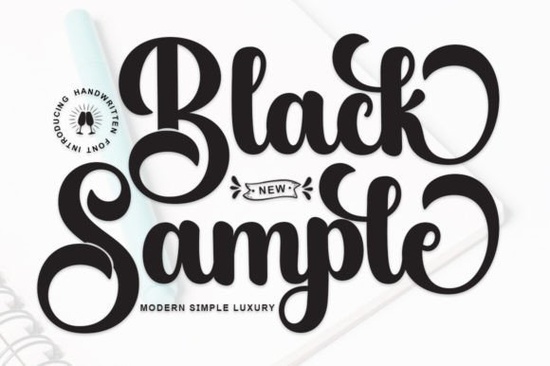
If you're looking for a script font that balances elegance with everyday charm, Black Sample Font might be exactly what you need. It draws from classic calligraphy but keeps things fresh and usable for modern projects logos, wedding invitations, labels, and social media graphics all benefit from its graceful strokes. Instead of feeling stiff or overly ornate, it stays warm and inviting, which is often the hard part with script typefaces.
What makes Black Sample Font different from other script fonts?
Many script fonts lean heavily into one direction either too fancy for everyday use or too casual for premium work. Black Sample Font sits in a sweet spot. It has that calligraphic foundation, with flowing connectors and varied stroke widths, but it doesn't try to be a reproduction of vintage lettering. It feels current. The letters have enough personality to stand alone in a logo, but they also pair well with simpler sans-serif fonts for body text or secondary information.
If you've worked with the Beautiful Wildflower Duo, you already know how a well-crafted script can transform a layout. Black Sample Font offers a similar level of polish, but with a slightly more refined, elegant posture. It's less playful and more sophisticated, which makes it a solid choice for branding projects where you need to communicate both quality and approachability.
Is this font suitable for print-on-demand products?
Absolutely. Print-on-demand sellers will find a lot to like here. The font reads well at different sizes, so it works on everything from t-shirt quotes to notebook covers to wall art prints. The letterforms are clear enough to remain legible when scaled down for mugs or phone cases, yet detailed enough to look premium on larger items like tote bags or posters.
For example, if you're designing a line of wedding-related products, this font can handle the main headline on a "Mr & Mrs" mug or the elegant script on a set of thank-you cards. It also pairs naturally with the Olivia Scatcer Font if you need a secondary script for contrast or a more whimsical accent.
How can designers use Black Sample Font in branding projects?
Branding is where this font really shines. Because it feels both charming and elegant, it works well for businesses that want to appear trustworthy but not cold. Think boutique hotels, florists, bakeries, wedding planners, or stationery shops. The font can carry a logo on its own, or you can use it as a display type paired with a clean sans-serif for the rest of the identity.
When building a brand kit, consider using Black Sample Font for:
- Primary logo text – the flowing letters create a memorable first impression.
- Taglines or short phrases – it keeps the message feeling personal and handcrafted.
- Invitations and save-the-dates – the calligraphic roots make it a natural fit for formal events.
- Social media headers and quotes – it adds a human touch to digital content.
If you're working on children's products or playful branding, you might also explore the Children School Font for a contrasting, more casual feel. Combining the two could give you a versatile system for different product lines or audience segments.
What about using this font for wedding and event designs?
Wedding designers will appreciate how easily Black Sample Font adapts to different style themes. Whether the couple wants rustic, modern, boho, or classic, this font can fit in without looking like a template. Use it for the couple's names on the invitation, the ceremony program headings, or the thank-you notes.
It also works beautifully with ornamental elements. If you're layering text over a floral background or a watercolor wash, the font's stroke contrast helps it stay readable. For winter or holiday weddings, you could even pair it with the Christmas Lights Font for a festive touch that still feels elegant.
Does Black Sample Font work well for signage and labels?
Yes, and this is a use case that often gets overlooked. Signage and labels require fonts that are readable from a distance or at small sizes. Script fonts can sometimes fail here, but Black Sample Font keeps its clarity. The letter spacing is generous enough that words don't blur together, and the ascenders and descenders are balanced.
For product labels think candles, skincare, or gourmet food this font adds a handcrafted, artisanal feel. It suggests quality without needing to say it. You can use it for the product name, then drop to a simple sans-serif for ingredients or instructions. The contrast between the two will make your label look professional and intentional.
If you're creating outdoor signage or banners, just make sure the font size is large enough to keep the script readable. For indoor use, like menu boards or wall quotes, it works beautifully at moderate sizes.
How does Black Sample Font compare to other options in the same category?
In the script fonts category, you'll find a wide range of styles from ultra-casual handwritten looks to formal copperplate replicas. Black Sample Font sits in the middle, leaning slightly toward elegance but staying accessible. It doesn't require a lot of extra styling to look good. Sometimes a simple black or white background is all you need.